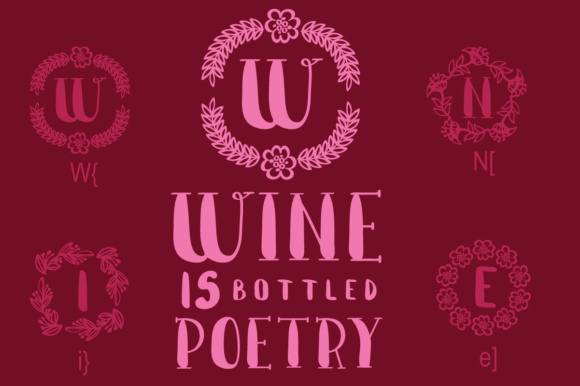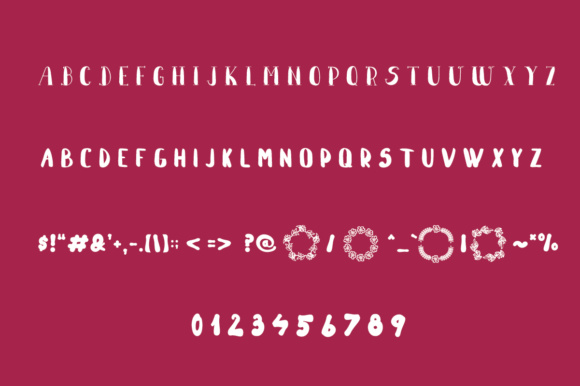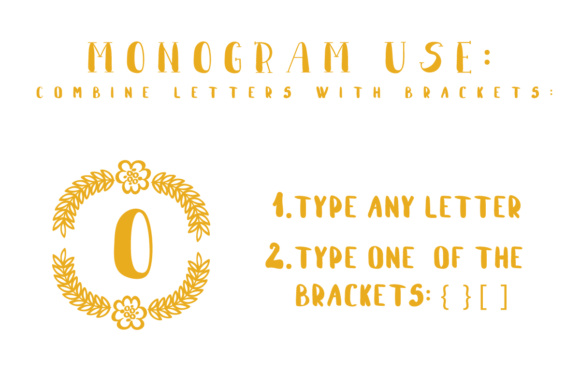
Introducing Flower Power Font: Elevate Your Designs with Stunning Monogram Frames
Are you a designer, crafter, or DIY enthusiast looking to add a touch of elegance and whimsy to your projects? Look no further than the Flower Power Font, a beautiful monogram font that allows you to create stunning floral monogram frames with ease. In this article, we’ll dive into the features and benefits of Flower Power Font, and explore how you can use it to take your designs to the next level.
What is Flower Power Font?
Flower Power Font is a unique and versatile monogram font that comes with 4 distinct floral frames. This font is specifically designed to help you create gorgeous monogram frames that can be used for a variety of projects, from wedding invitations and stationery to crafts and DIY decor. With Flower Power Font, you can easily and instantly create beautiful floral monogram frames that will add a personal touch to your designs.
Key Features of Flower Power Font
- 4 Unique Floral Frames: Flower Power Font comes with 4 stunning floral frames that can be used to create monogram frames. Each frame has a unique design, allowing you to experiment with different styles and find the one that suits your project best.
- Easy to Use: Using Flower Power Font is incredibly simple. Just type a letter or number, and combine it with { } [ or ], for example: a{ or 5]. This makes it easy to create beautiful monogram frames without requiring extensive design experience.
- Instant Results: With Flower Power Font, you can see instant results. Simply type in your text, and the font will generate a beautiful floral monogram frame around it.
- High-Quality Design: Flower Power Font is designed with high-quality graphics in mind. The font is perfect for creating stunning designs that will stand out from the crowd.
Benefits of Using Flower Power Font
- Saves Time: With Flower Power Font, you can create beautiful monogram frames in minutes, saving you time and effort.
- Easy to Customize: The font is highly customizable, allowing you to experiment with different frames, letters, and numbers to create a unique design that suits your project.
- Perfect for DIY Projects: Flower Power Font is ideal for DIY enthusiasts and crafters who want to add a personal touch to their projects.
- Great for Designers: The font is also perfect for designers who want to offer their clients unique and stunning monogram frames that will set their designs apart.
How to Use Flower Power Font
- Type a letter or number, and combine it with { } [ or ], for example: a{ or 5].
- Experiment with different frames and designs to find the one that suits your project best.